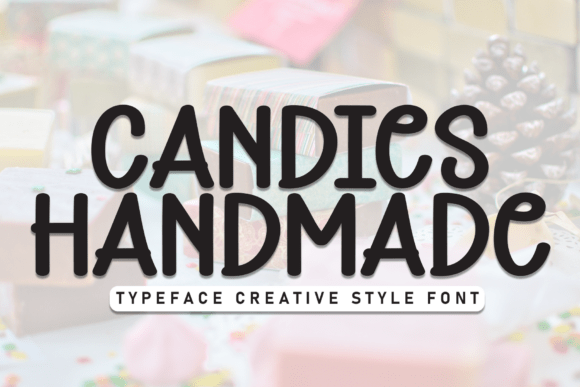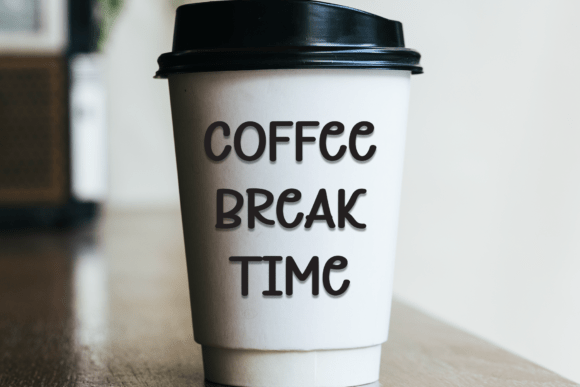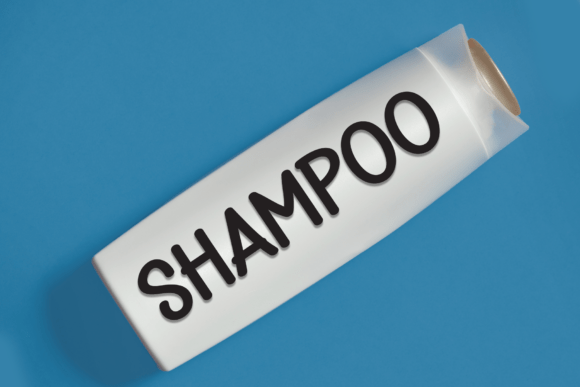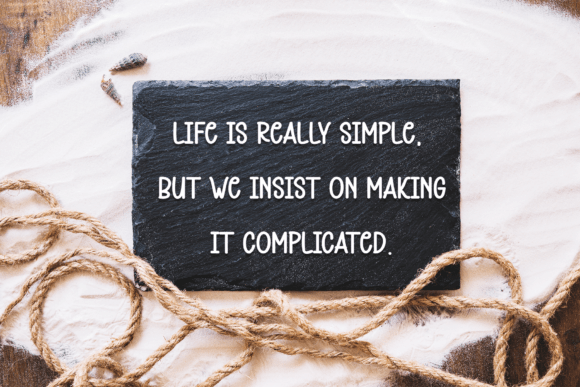
Candies Handmade Font
About the Candies Handmade Font
Introducing the Candies Handmade Font, a beautifully crafted typeface designed to elevate your creative projects. Candies Handmade is a sweet and quirky handwritten font with a crafty flair. Its friendly strokes and rounded edges make it perfect for handmade labels, gift tags, treat packaging, and cozy DIY-style designs.
Candies Handmade excels in projects requiring a friendly, approachable aesthetic. It’s ideal for branding focused on artisanal goods, children’s products, or small businesses with a handcrafted feel. Use it effectively for headlines, short text blocks on packaging, or social media graphics. Avoid using it for large amounts of body text or in UI designs where readability is paramount; the informal nature and varying stroke weights could hinder legibility.
Pairing Candies Handmade with a clean sans-serif like Open Sans for body copy provides excellent contrast and readability. For a more playful feel, consider pairing it with a geometric sans-serif such as Futura for a modern, balanced look. A classic serif like Garamond could add a touch of sophistication if a slightly more formal feel is needed.
The font’s core personality is undeniably cheerful and approachable, conveying a sense of warmth and handmade charm. This makes it a perfect choice for brands wanting to highlight the human touch and artisanal quality of their products or services.